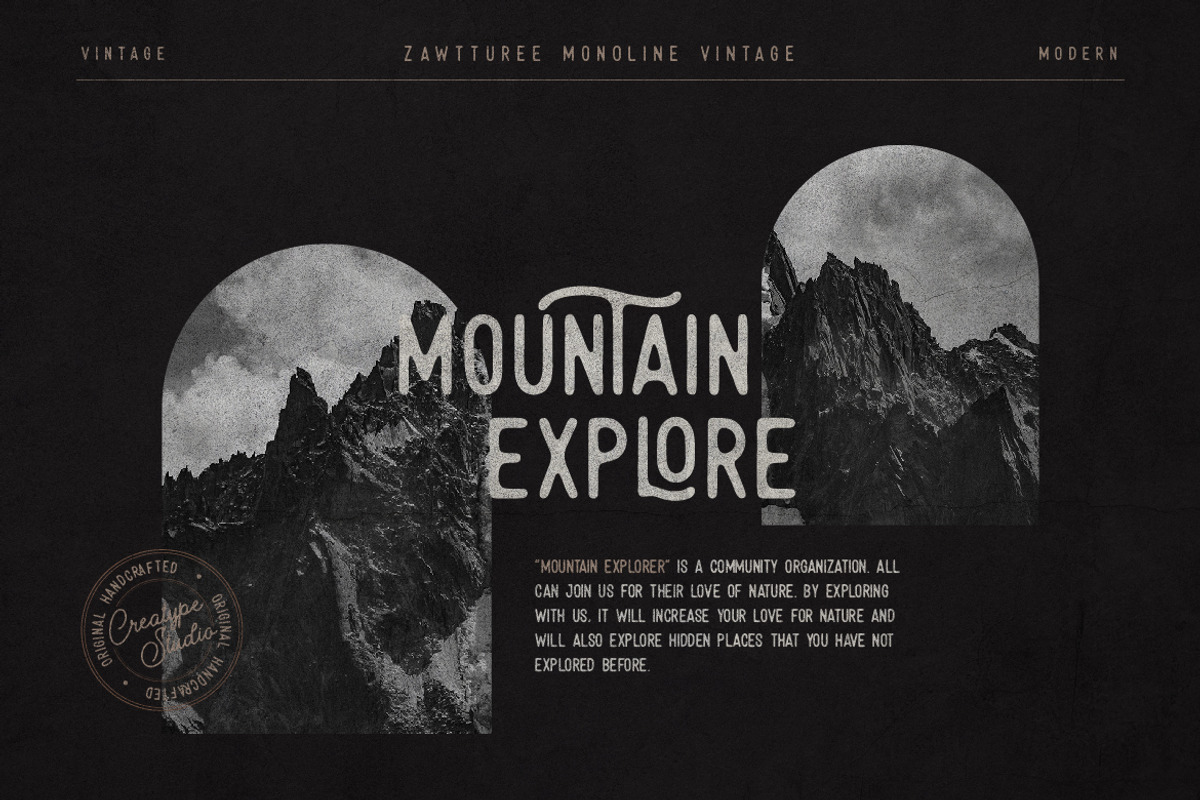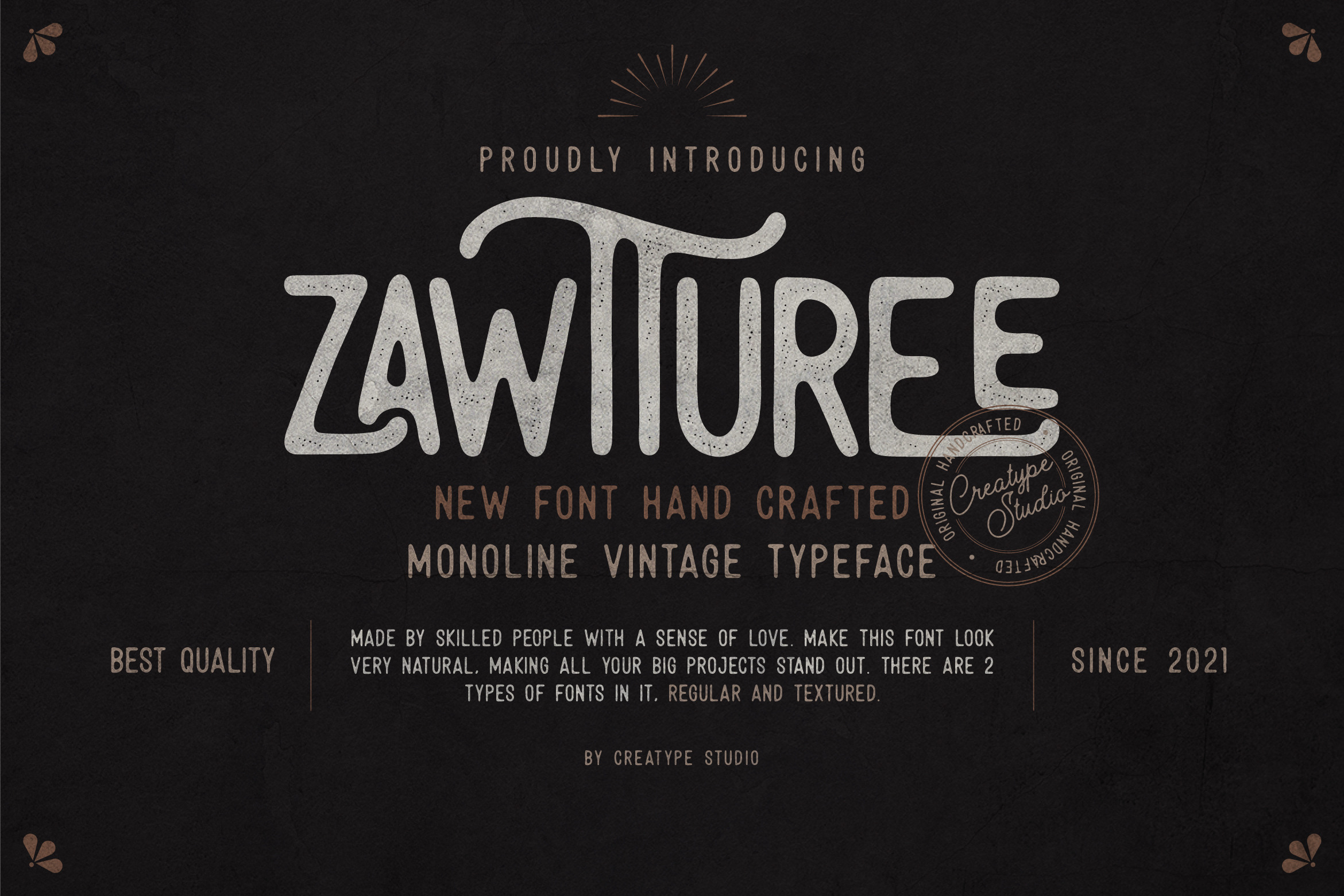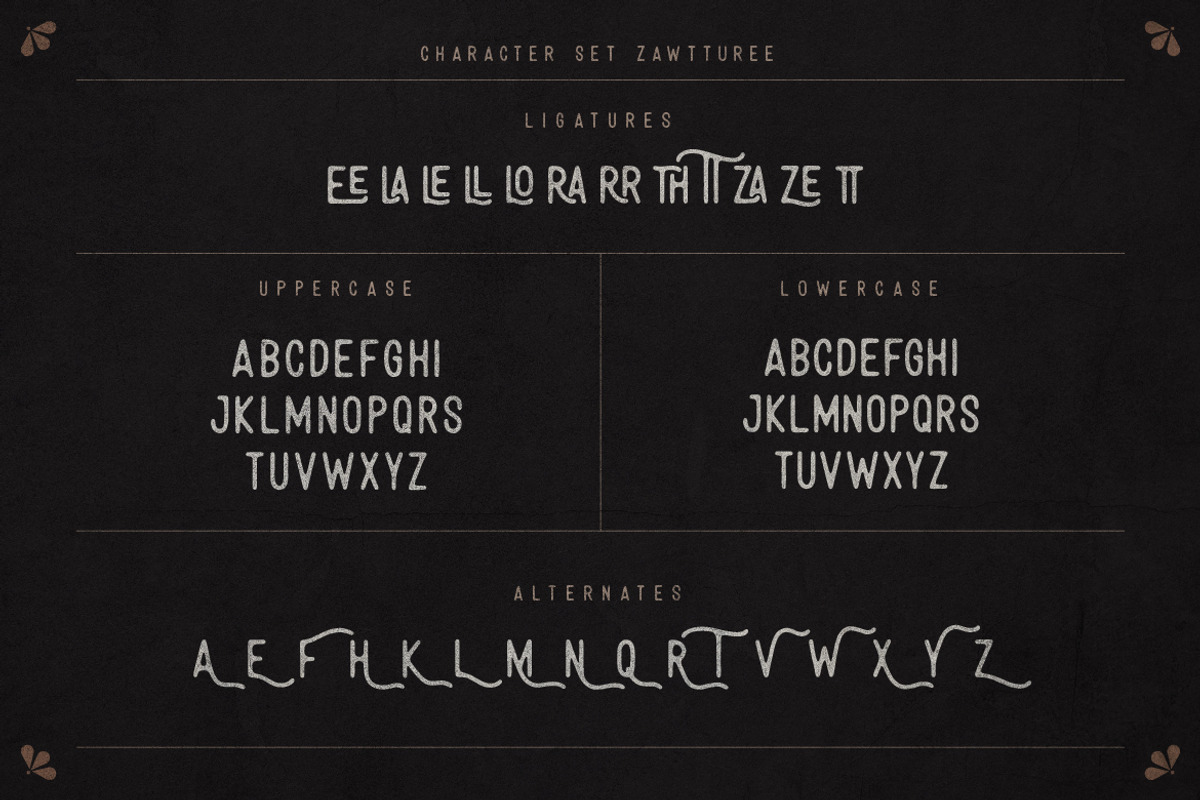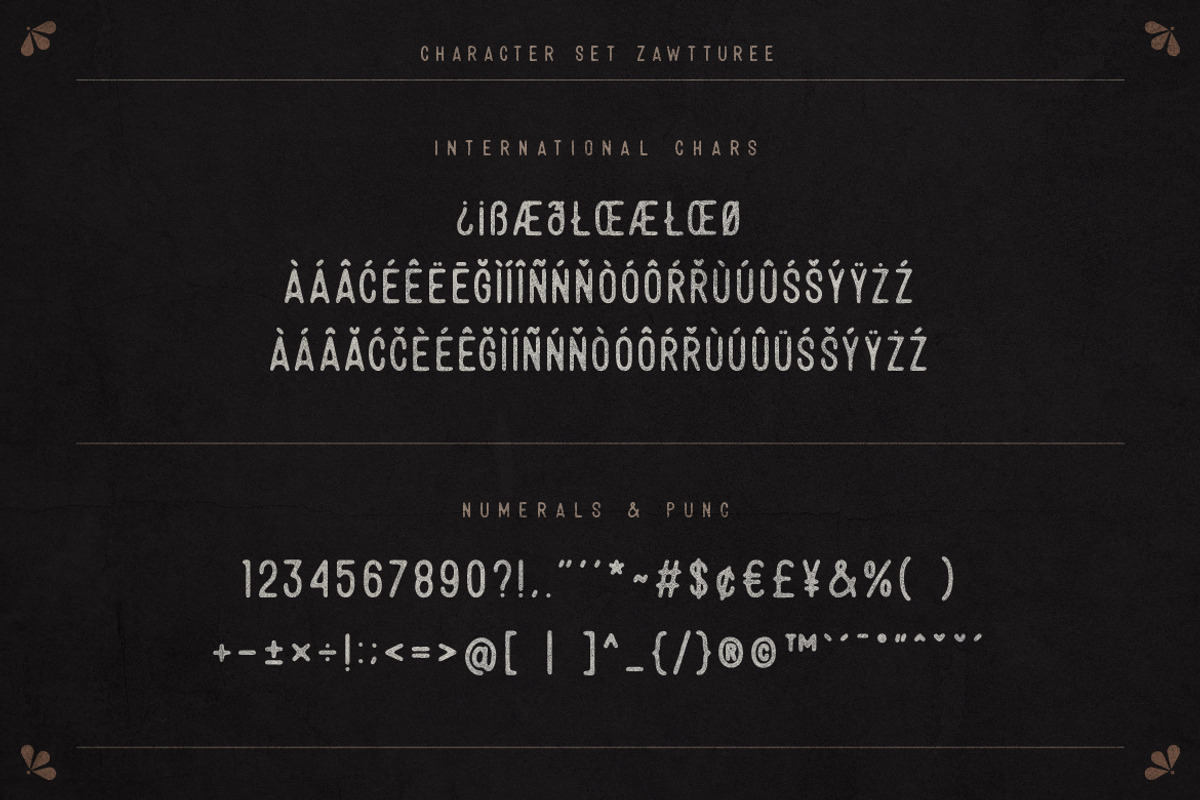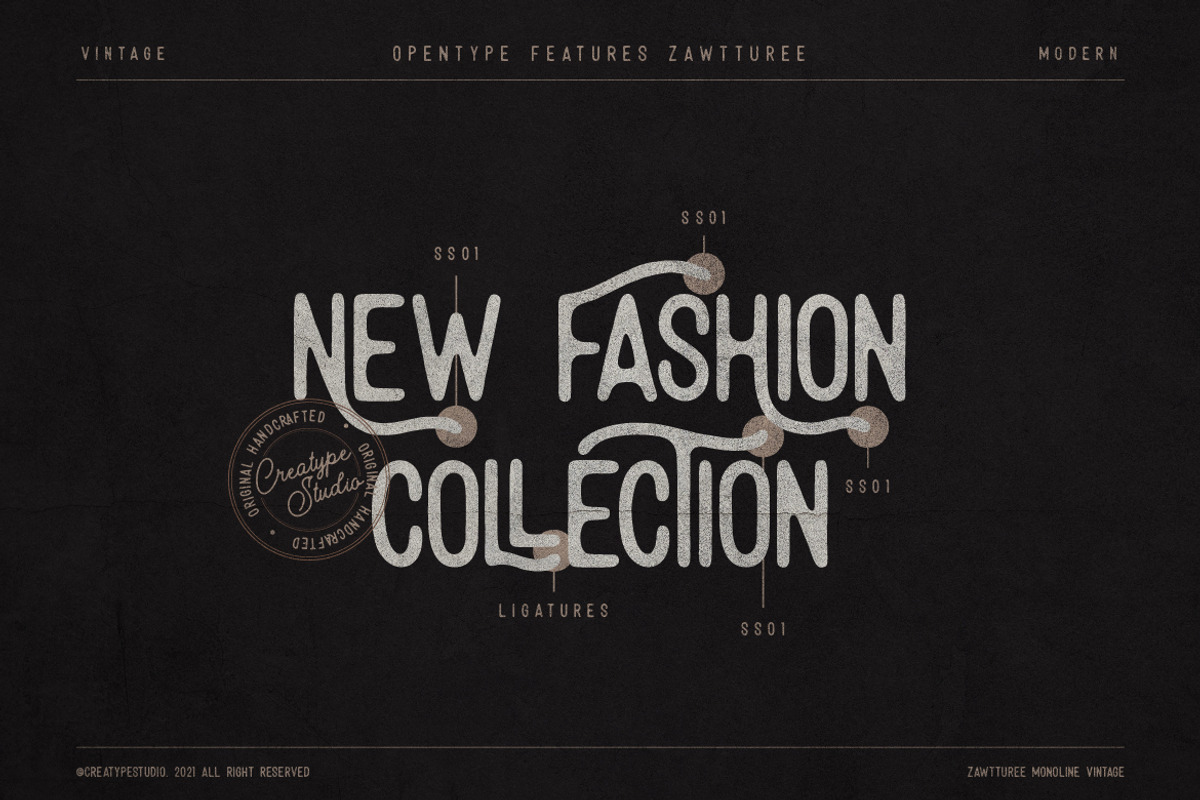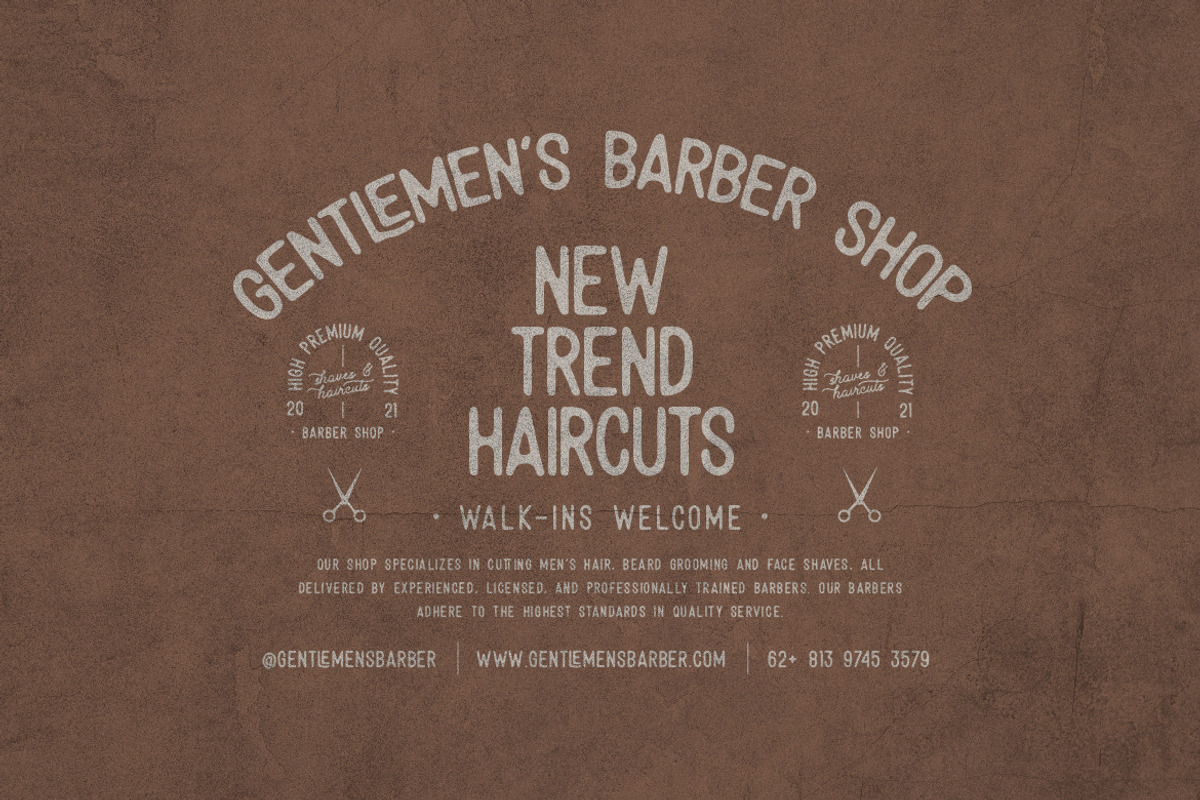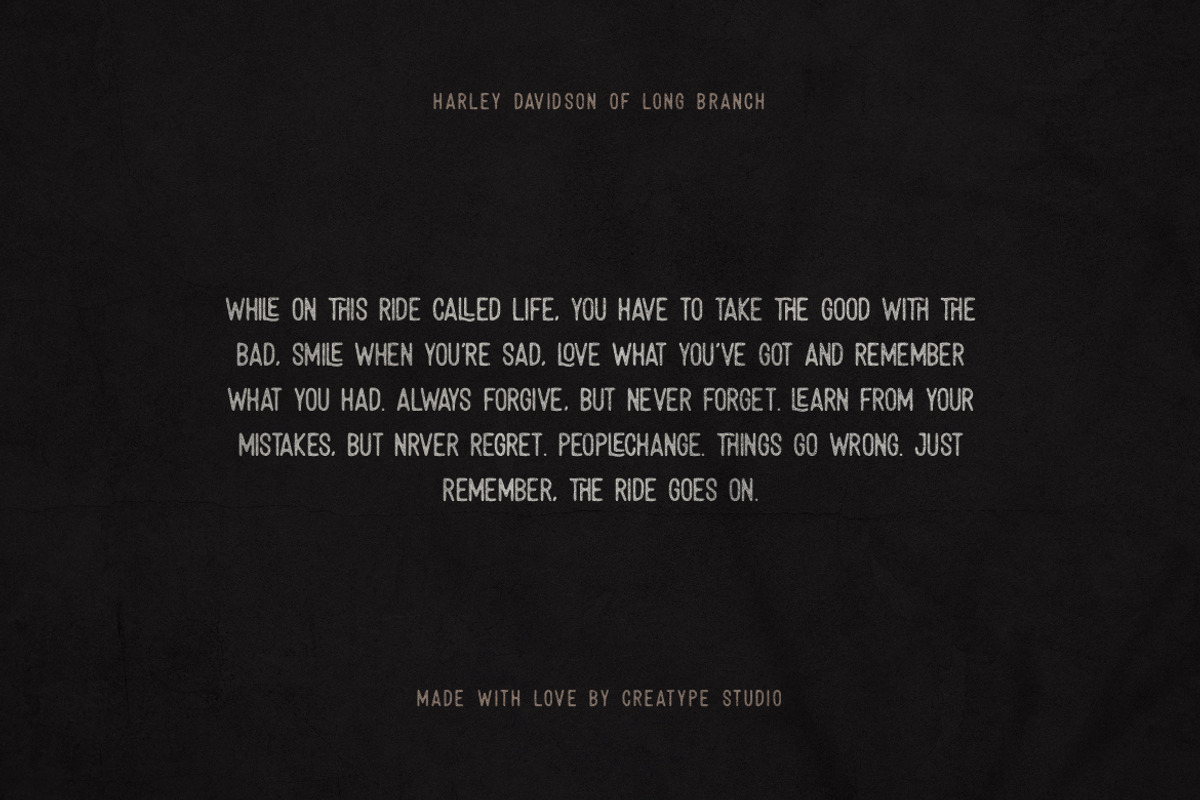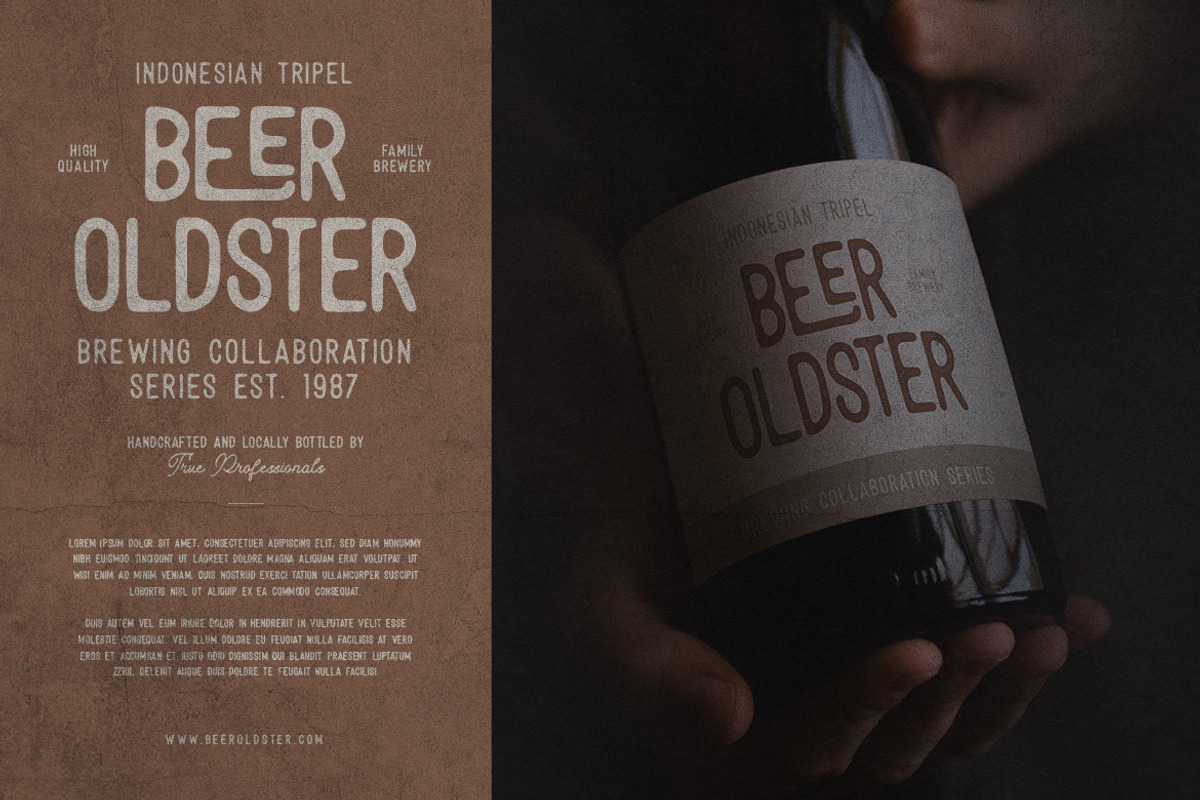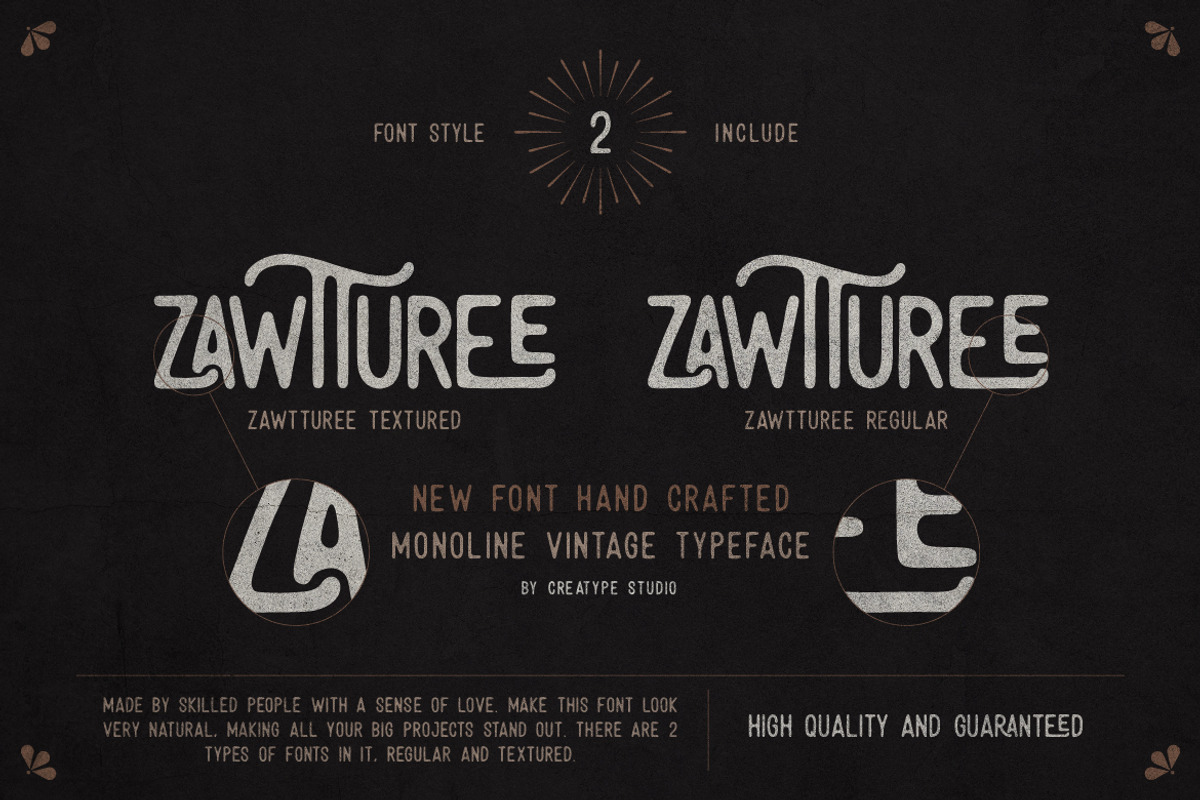
Zawturee Vintage Business Font
Zawturee is a vintage monoline typeface created by skilled people with a genuine sense of love. This font looks so natural, there are 2 types of fonts in it regular and textured. Zawtturee is perfect for all your big projects, which makes your project stand out.
Zawturee is perfect for branding projects, logo, wedding designs, social media posts, advertisements, product packaging, product designs, label, photography, watermark, invitation, stationery and any projects that need handwriting taste.
- Ligature & Alternate